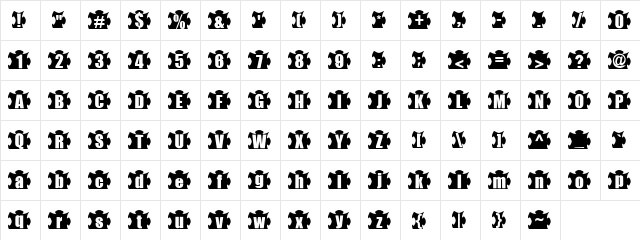
Voltas Regular
Design Context for Voltas Typeface
Voltas is a composed and adaptable typeface that performs quietly and consistently across a wide range of design contexts.